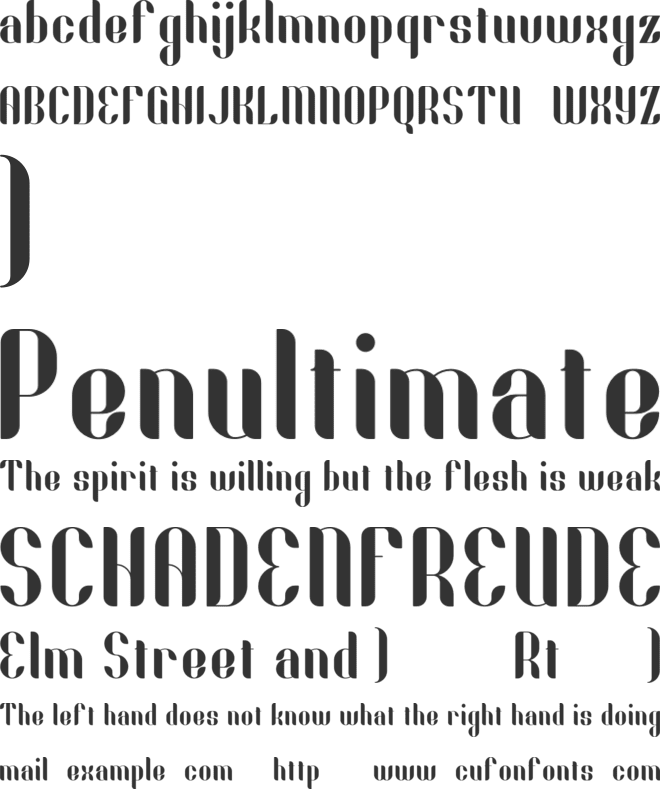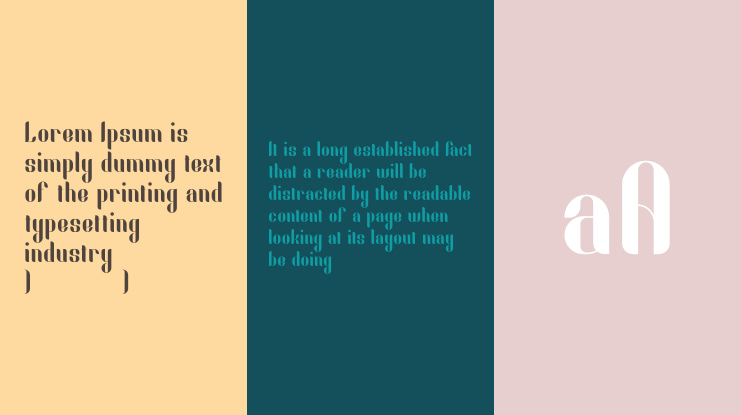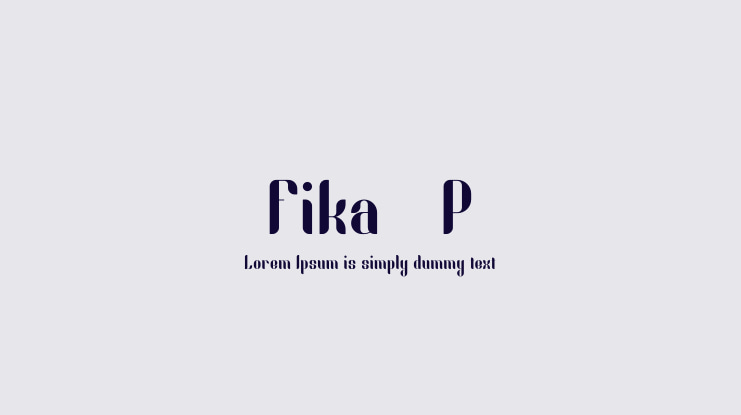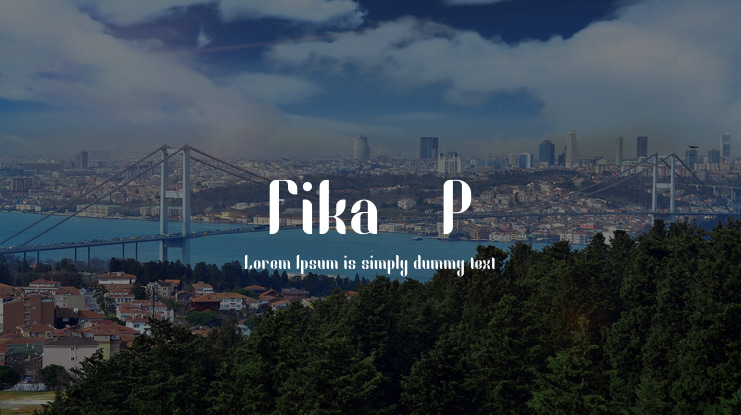
Fika VP Font
Fika Display Font
This is bold, fun typeface that contains 4 fonts to enchant your next project. They are loaded alternate glyphs, ligatures and multilingual support. Very versatile fonts that works great in large and small sizes.